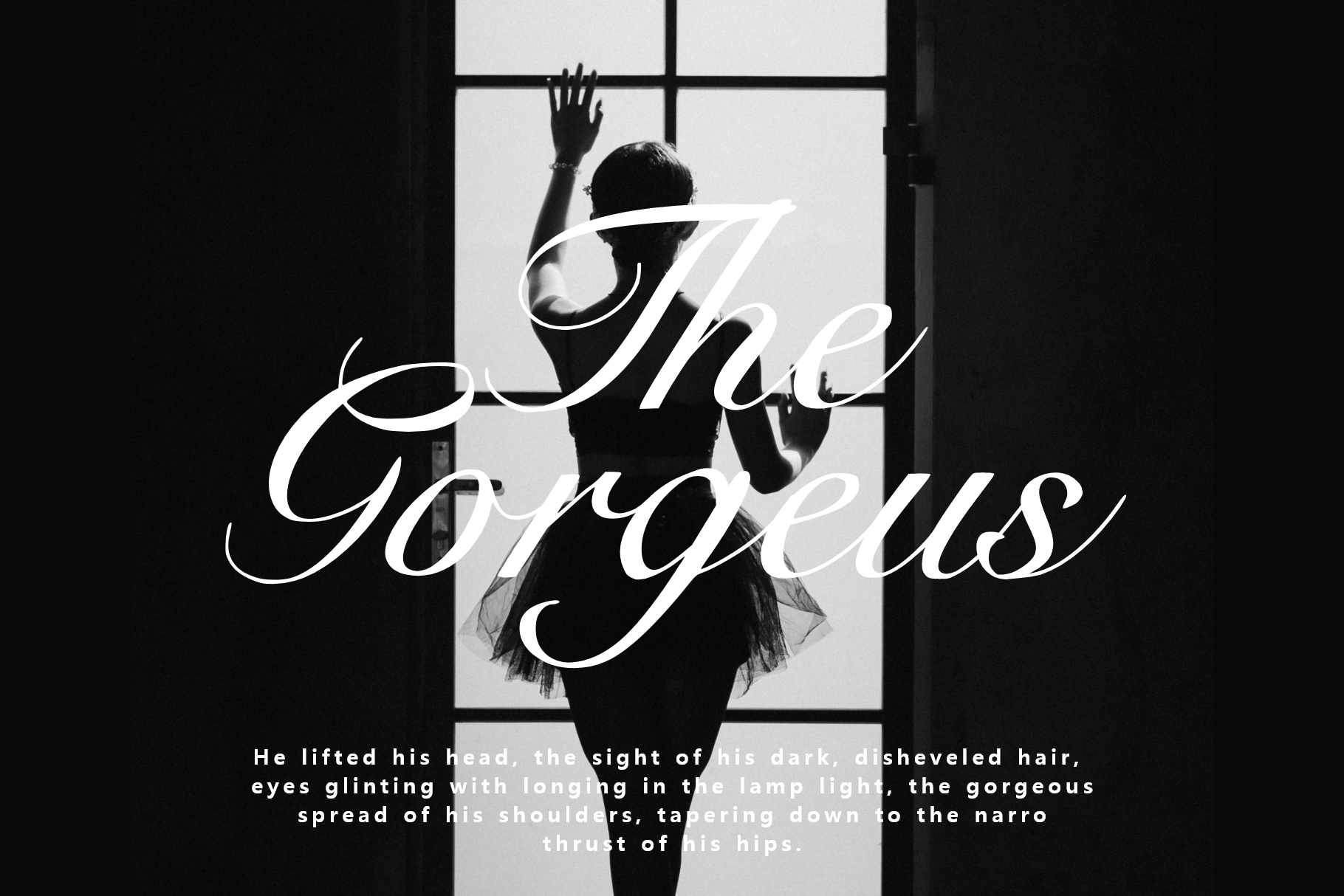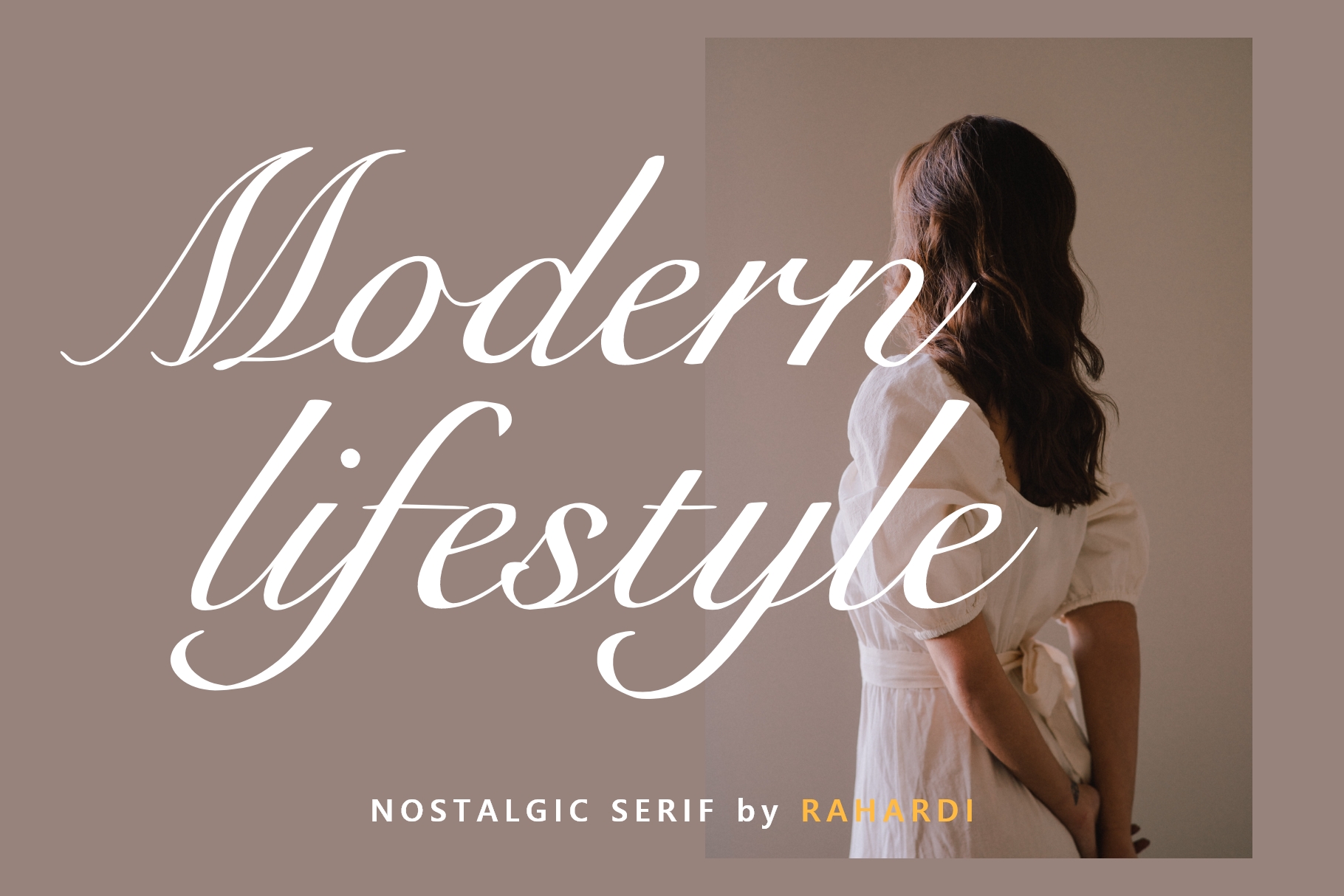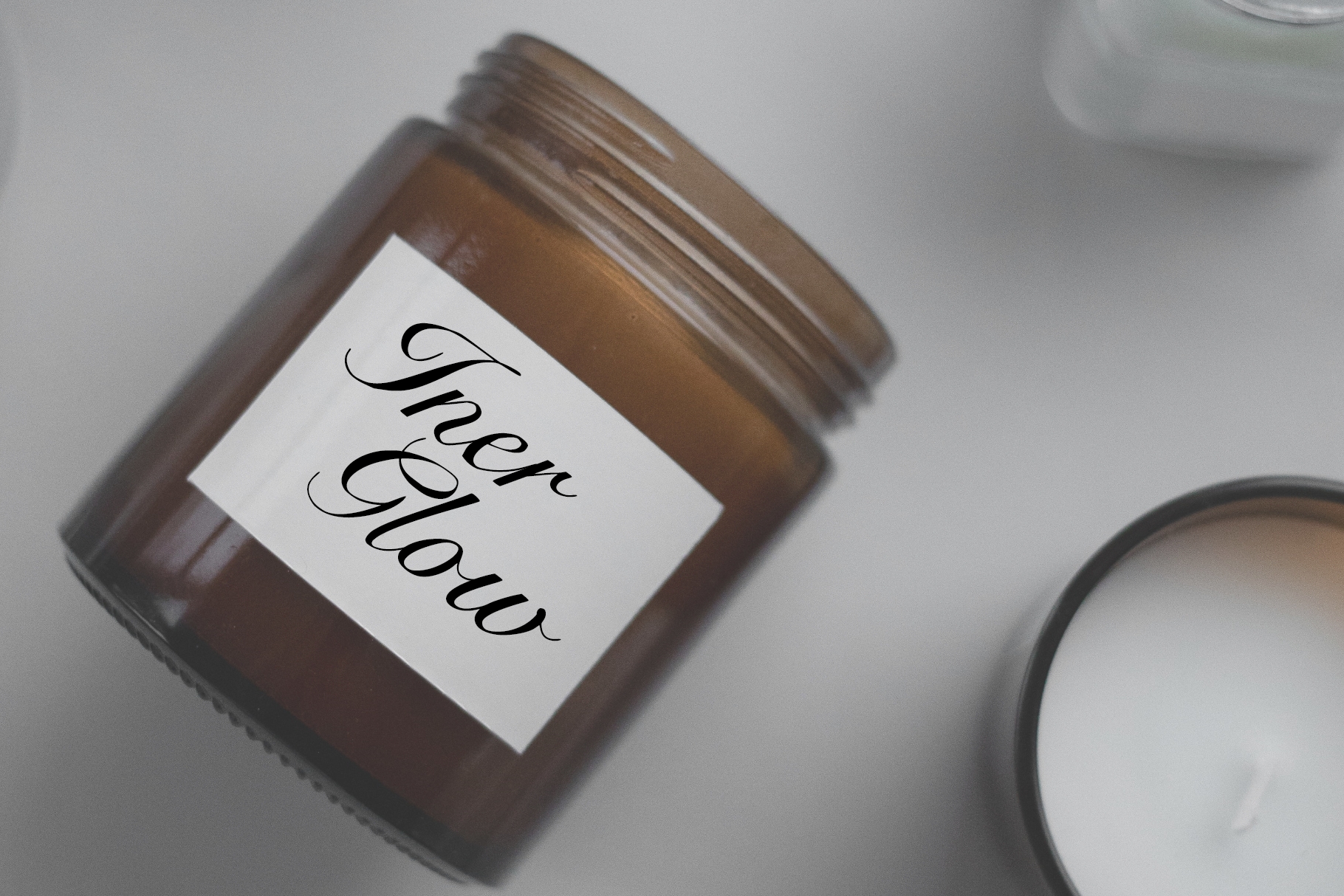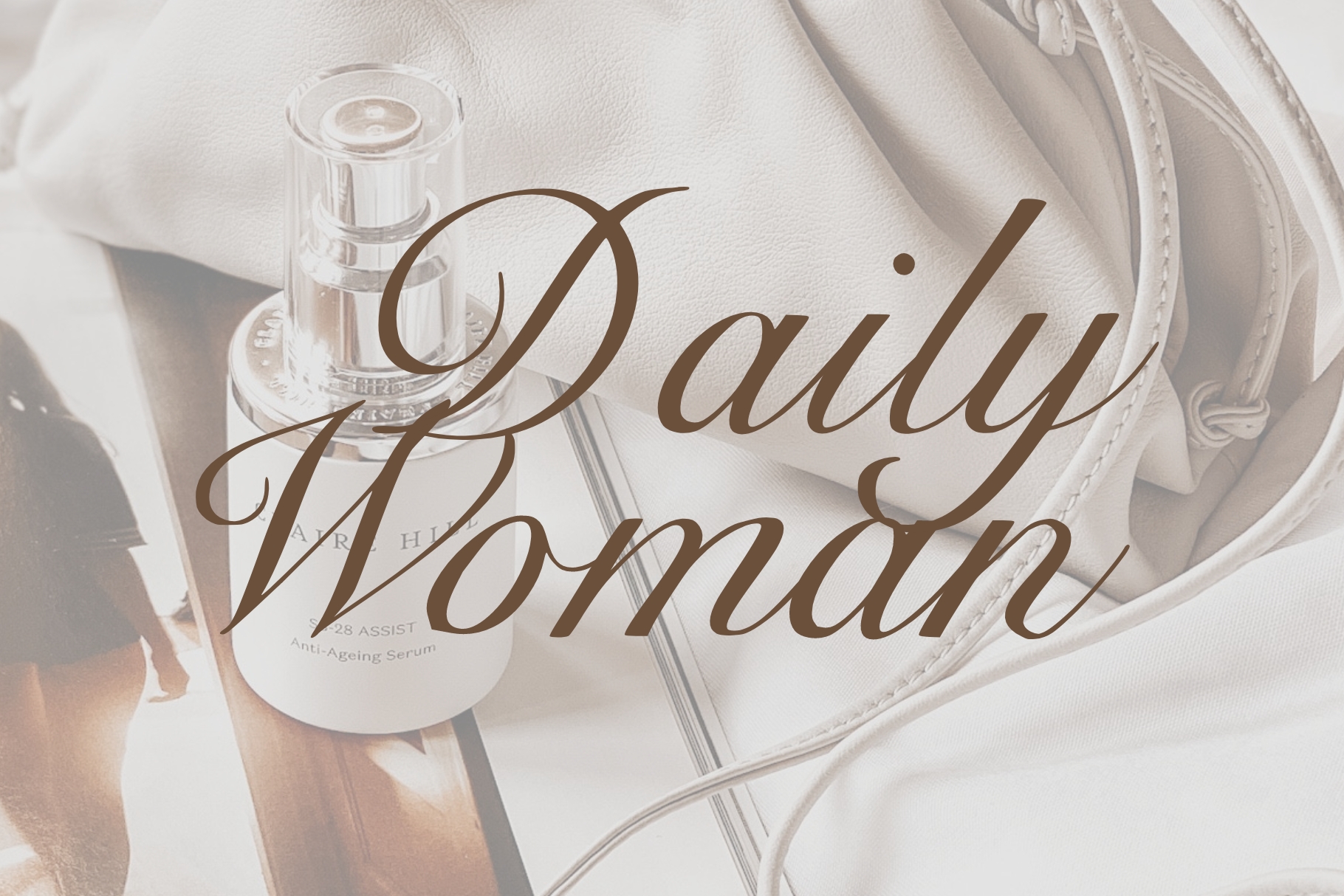
Flying Godbye Font
Flying Godbye Calligraphy Font
This is a beautiful and sexy nostalgic uppercase and lowercase typography, Available in Uppercase Lowercase and multilingual characters, Flying Godbye will represent your memories from the past, suitable for various design purposes such as magazine covers, cosmetic brands, beautiful quotes or business cards and much more.